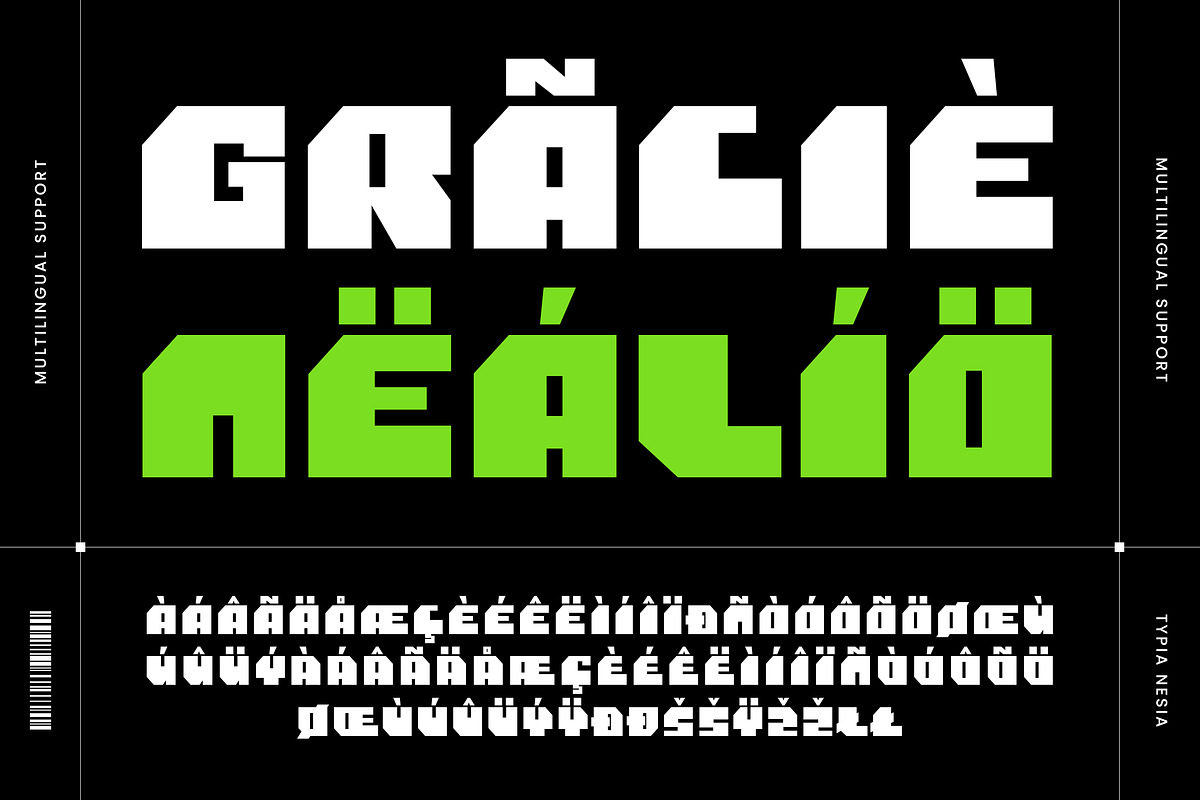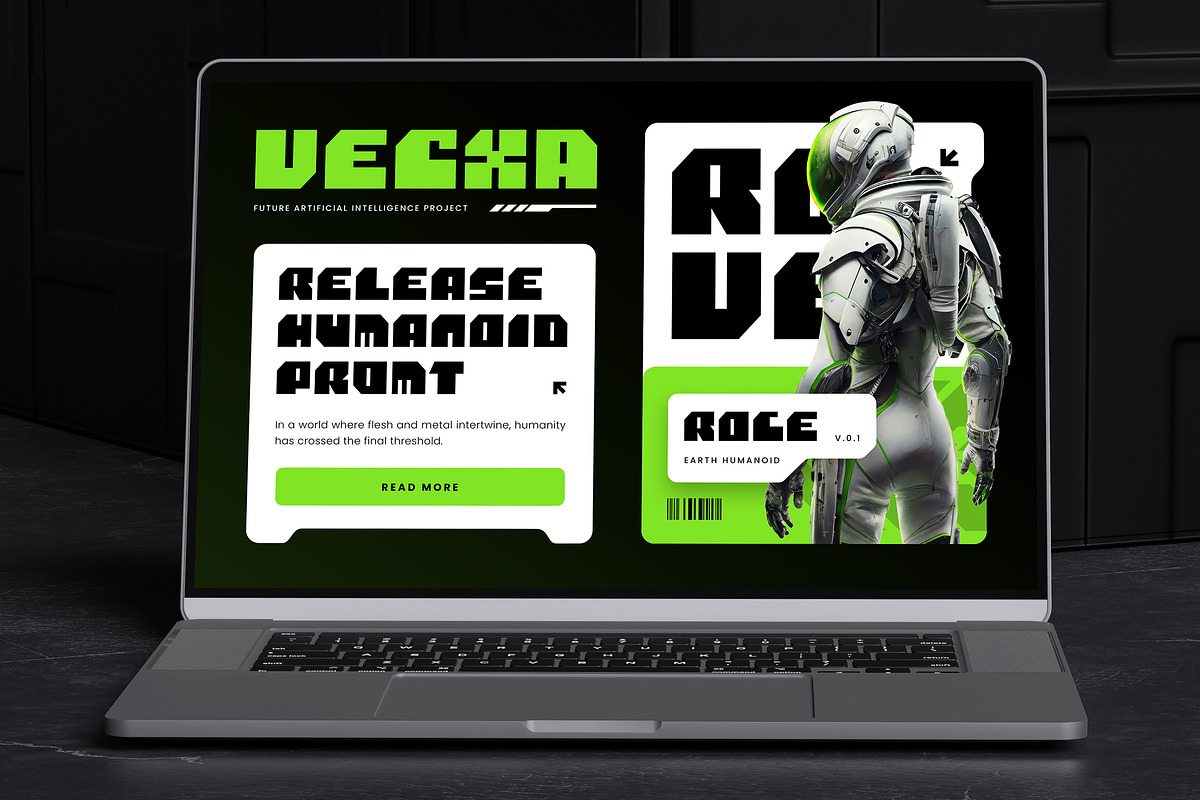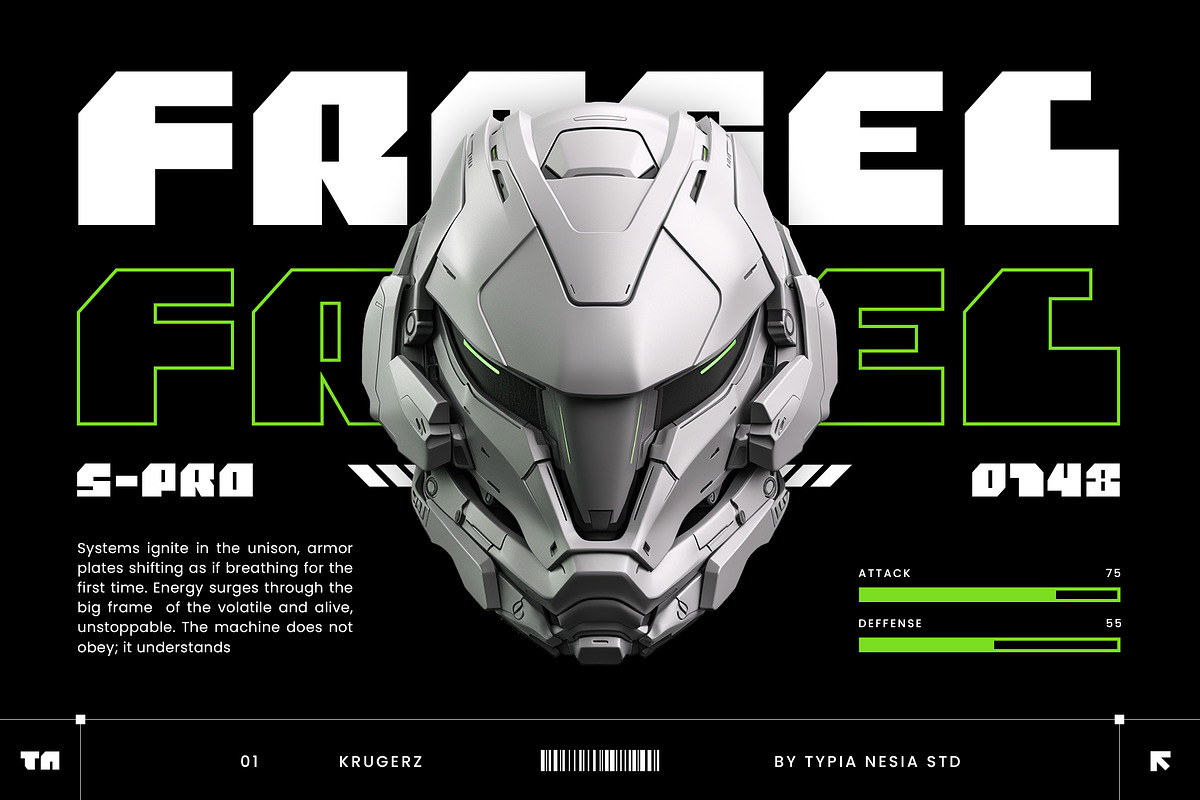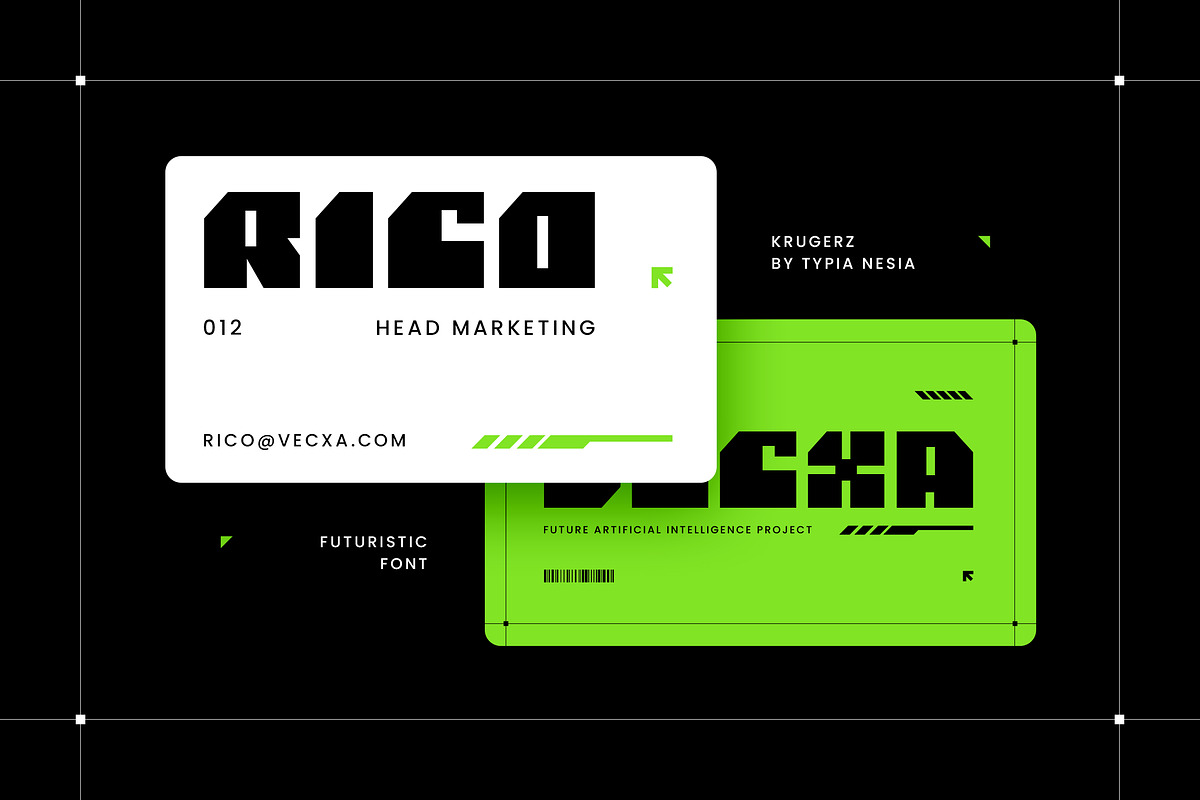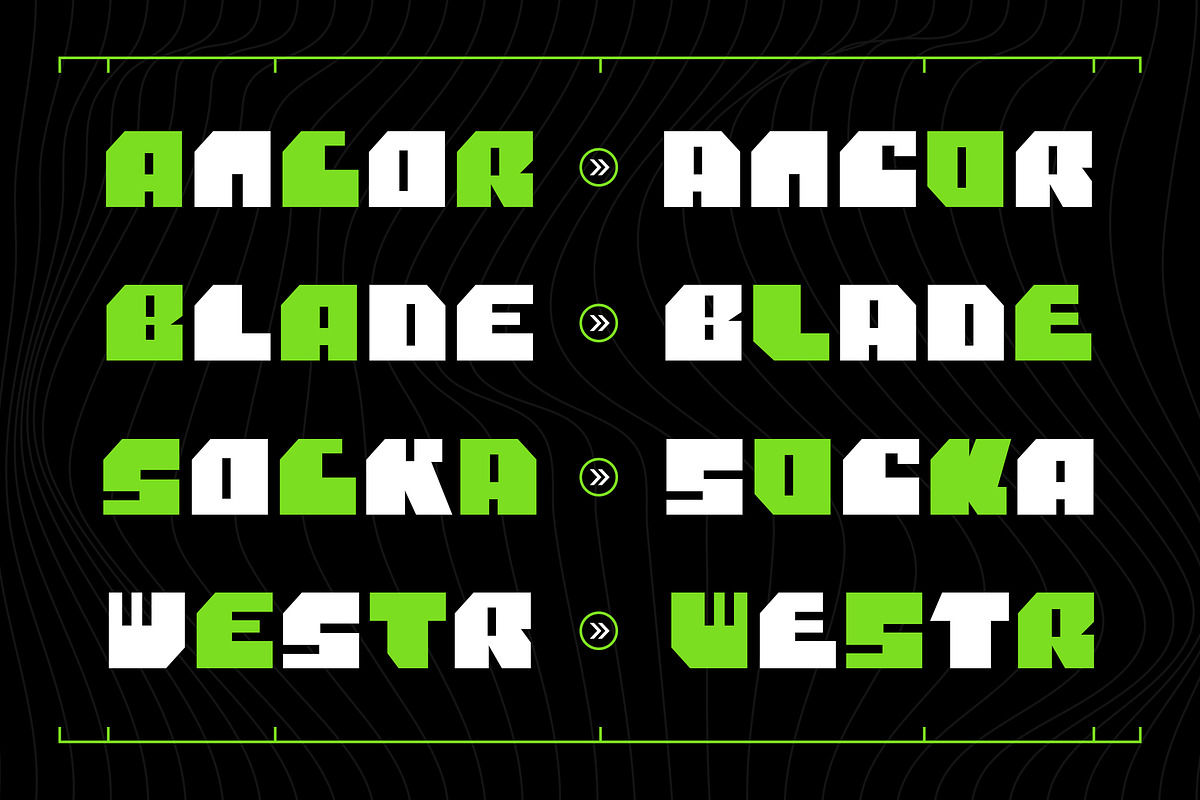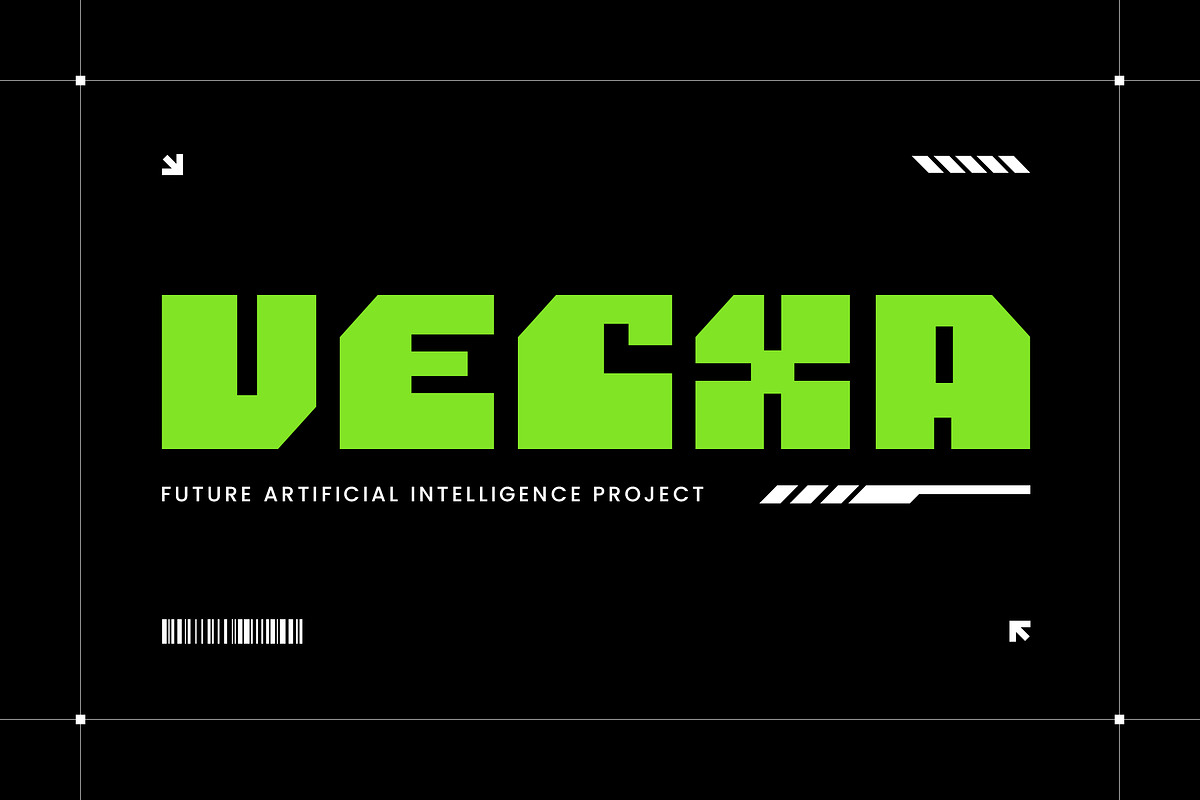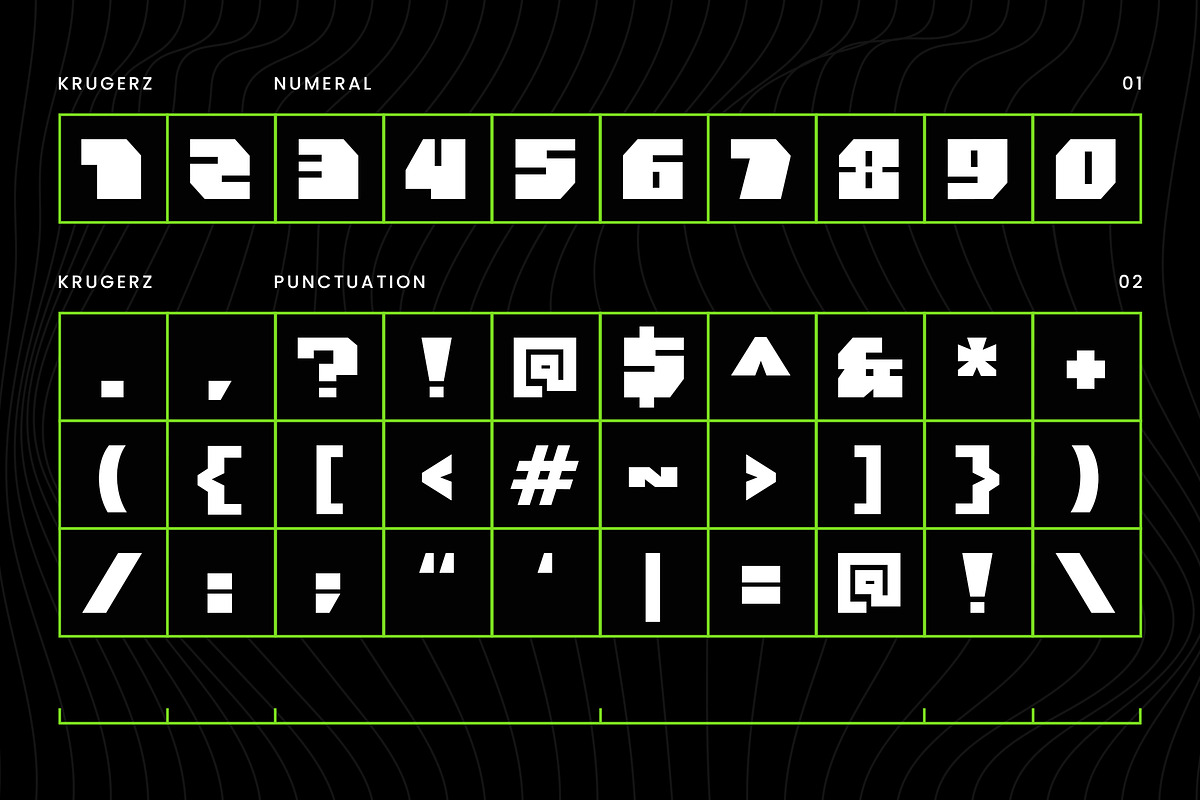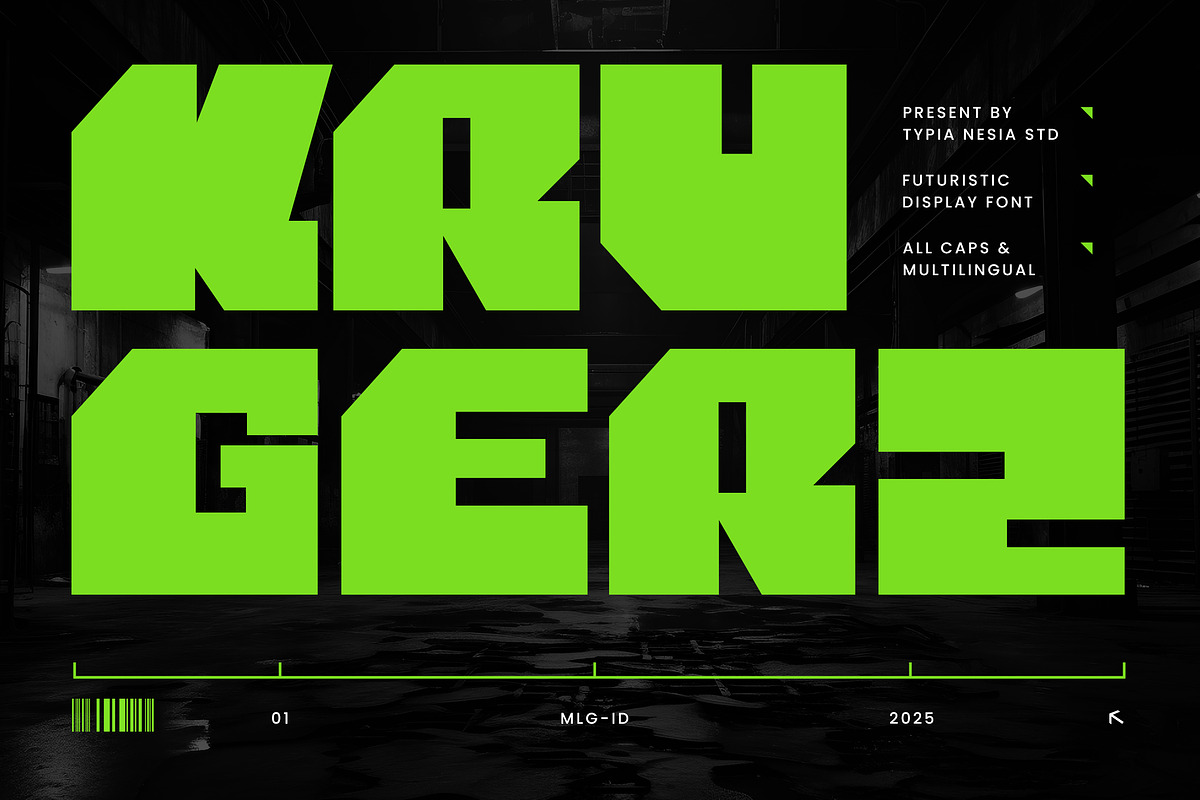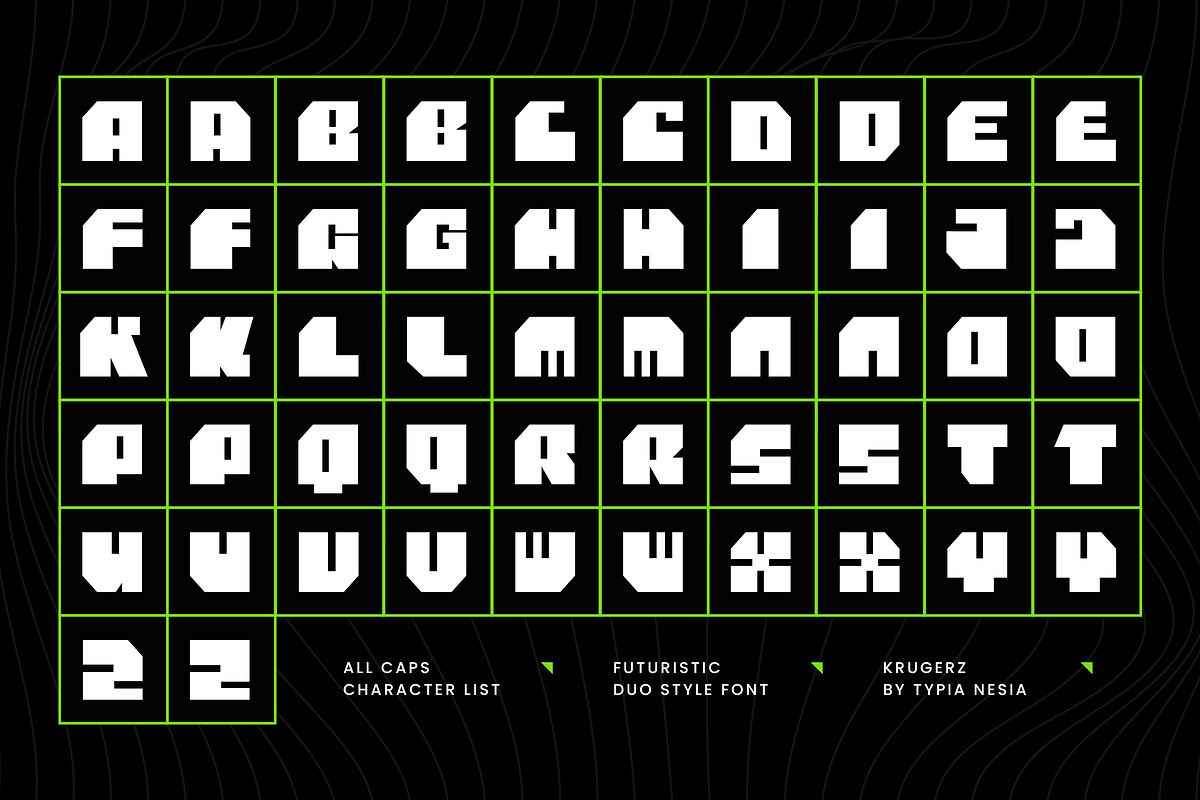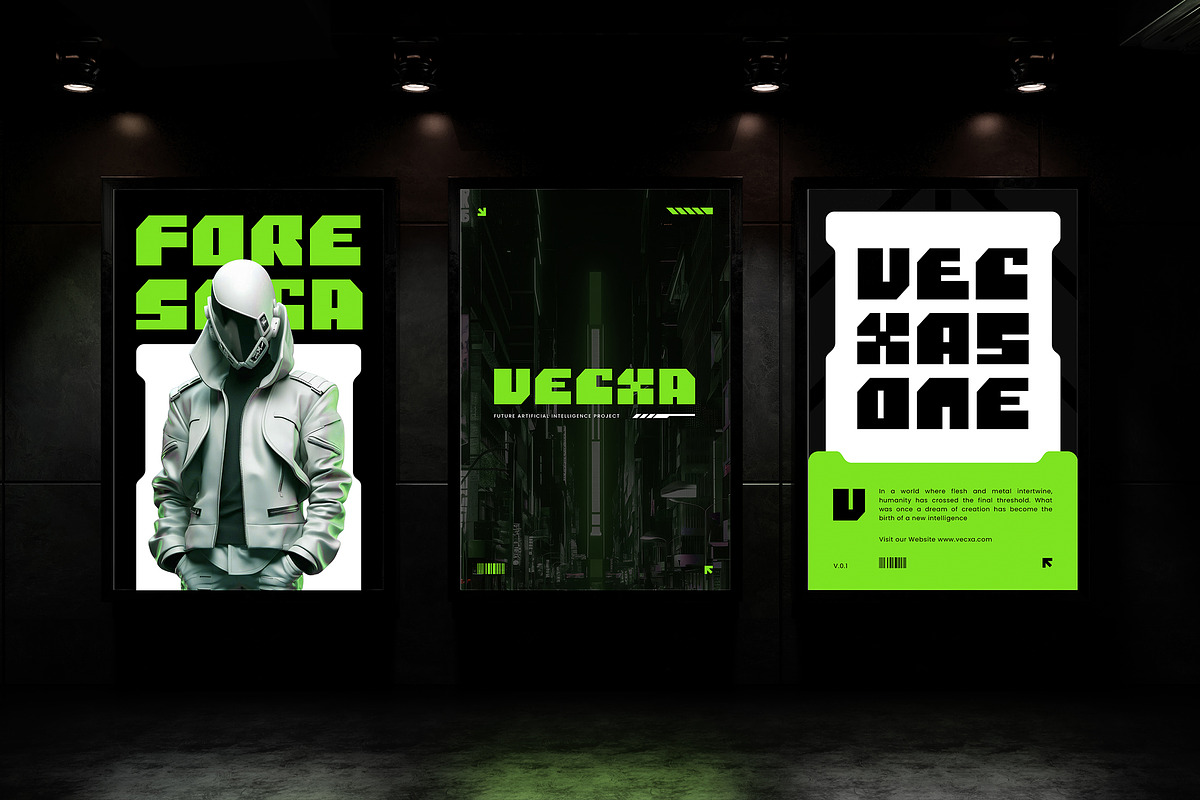
Krugerz - Futuristic Bold Sans
Krugerz - Futuristic Bold Square Sans - Modern Geometric Expanded Game Font
Krugerz is a Modern Futuristic Bold Sans Serif font built with a square, boxy, and geometric structure that delivers a powerful and high-impact visual presence. Its clean and structured design creates a strong sense of control, strength, and modernity. Featuring bold strokes and expanded proportions, inspired by sci-fi aesthetics, urban culture, and futuristic technology, Krugerz is perfect for branding, advertising, gaming, and sports visuals. It is also ideal for festival posters, space-themed designs, logos, or any project that requires a touch of a bold, aggressive, and futuristic tone.